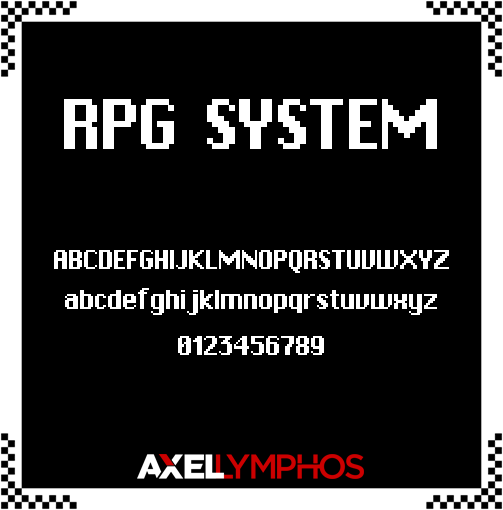
Font name: | RPGSystem |
Author: | Axel Lymphos |
Note by Axel Lymphos | |
Taken from one of SNES game. I created this font Free for your creation -- My facebook page. https://www.facebook.com/pages/Axel295/1453818308187131?ref=hl |